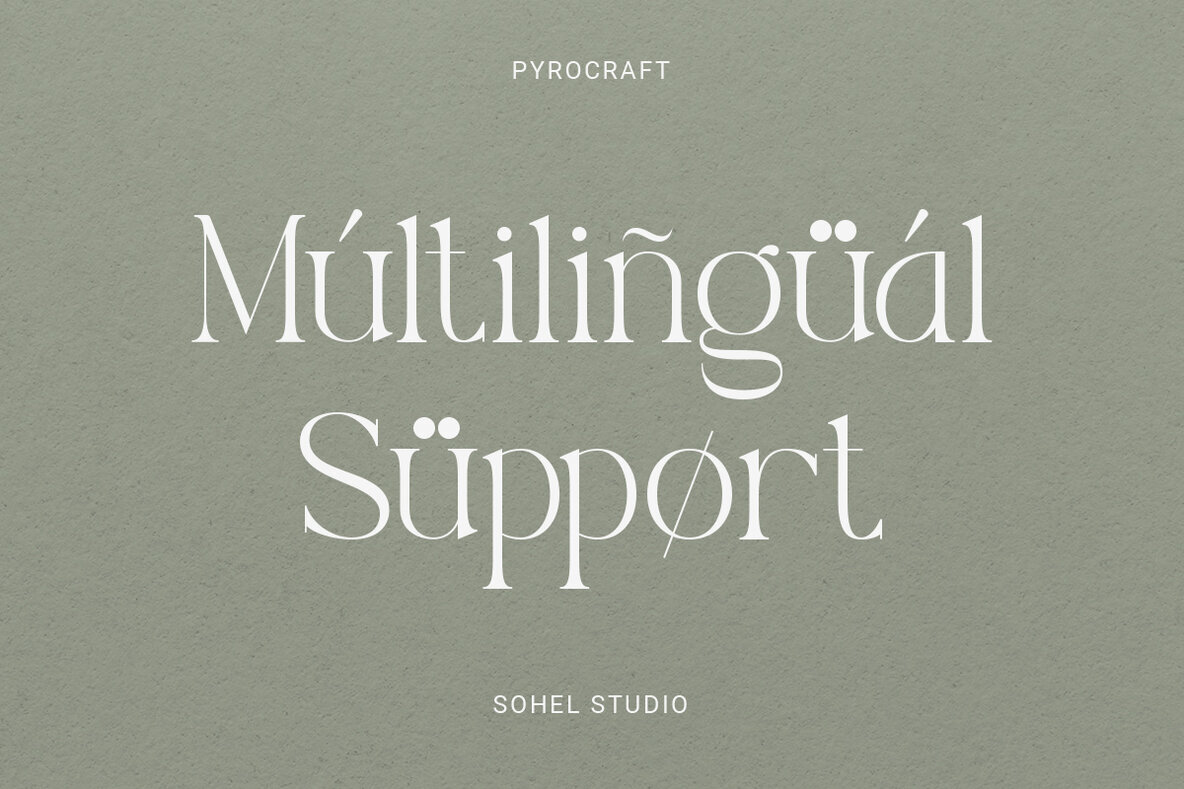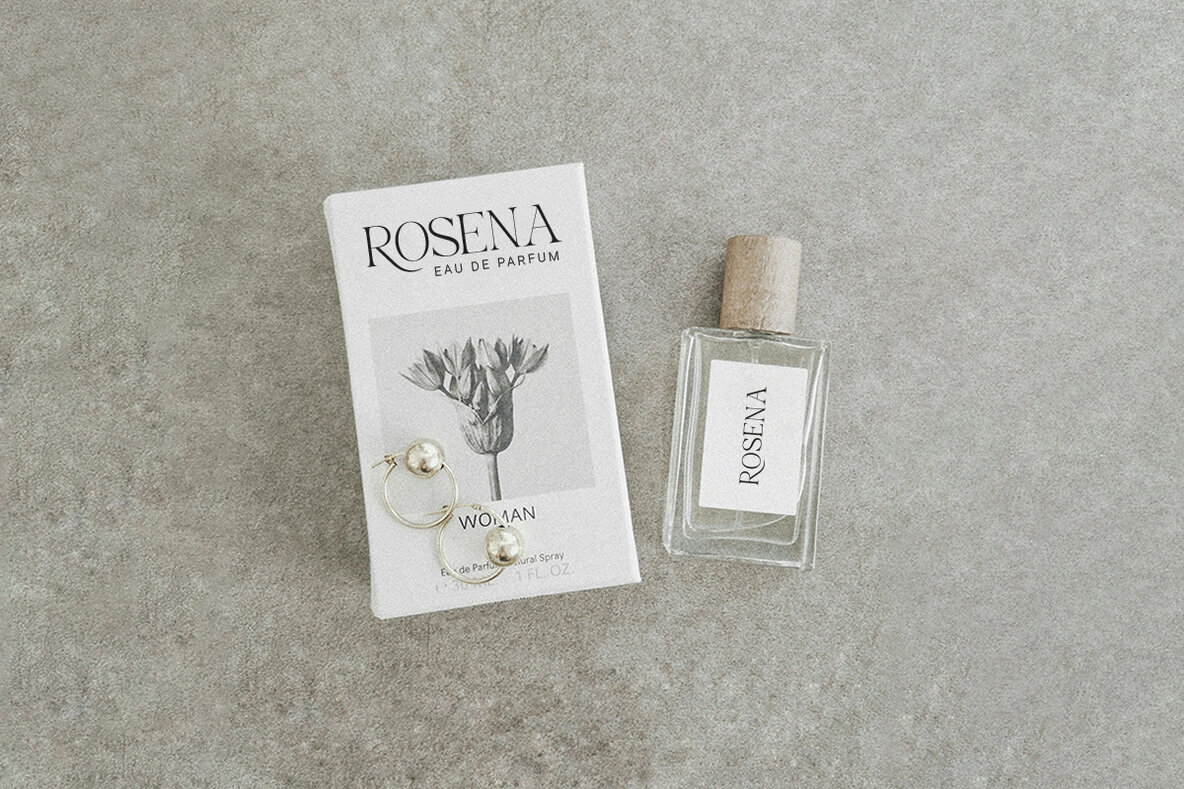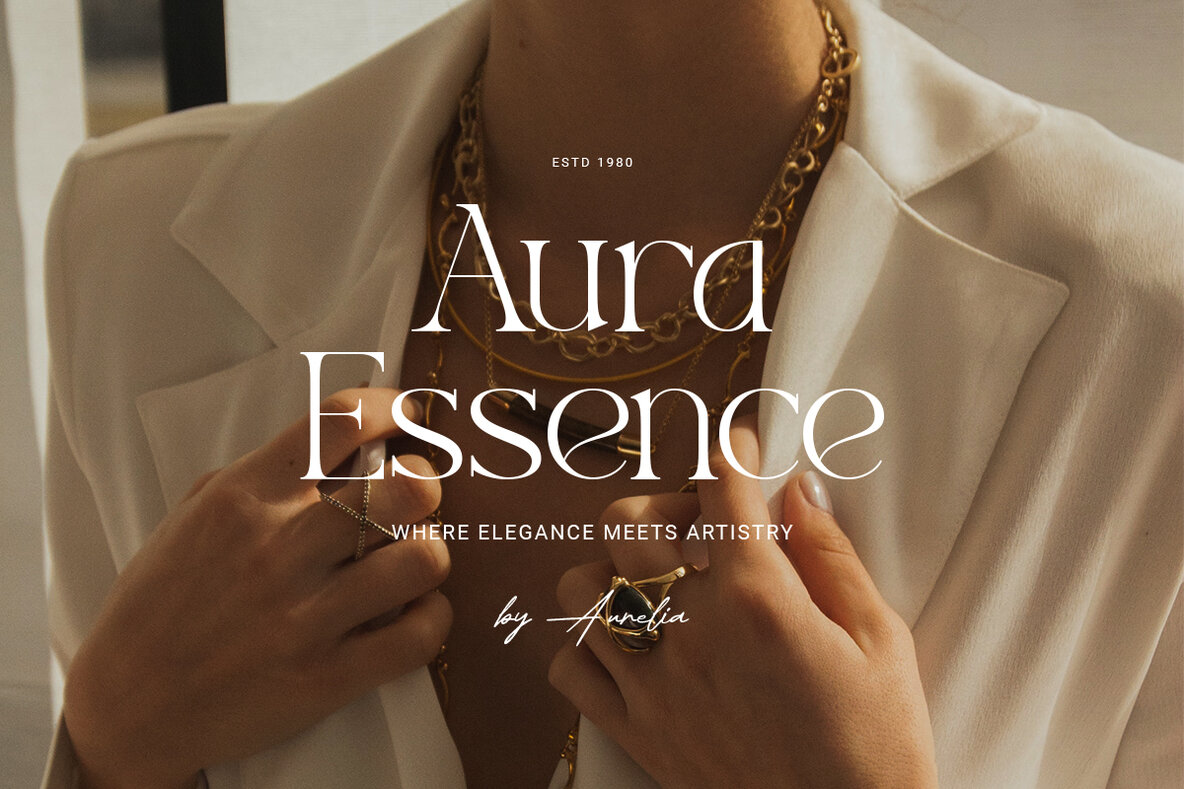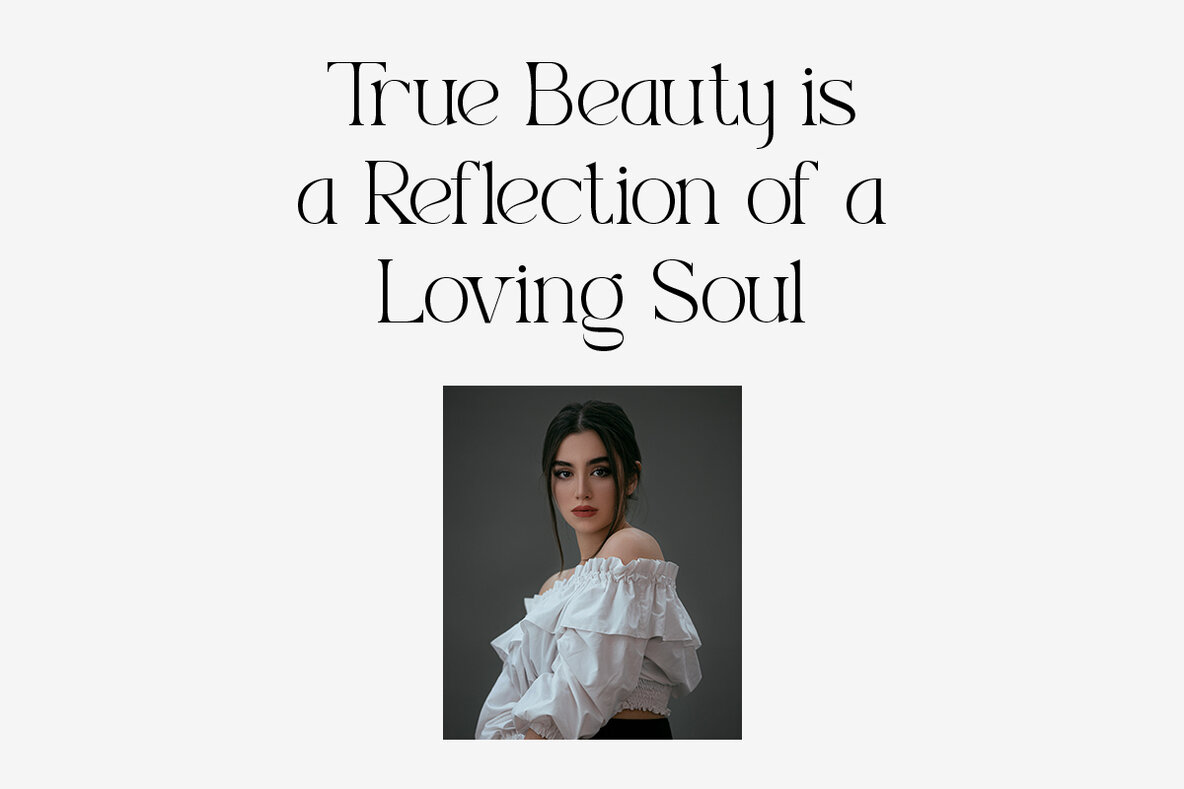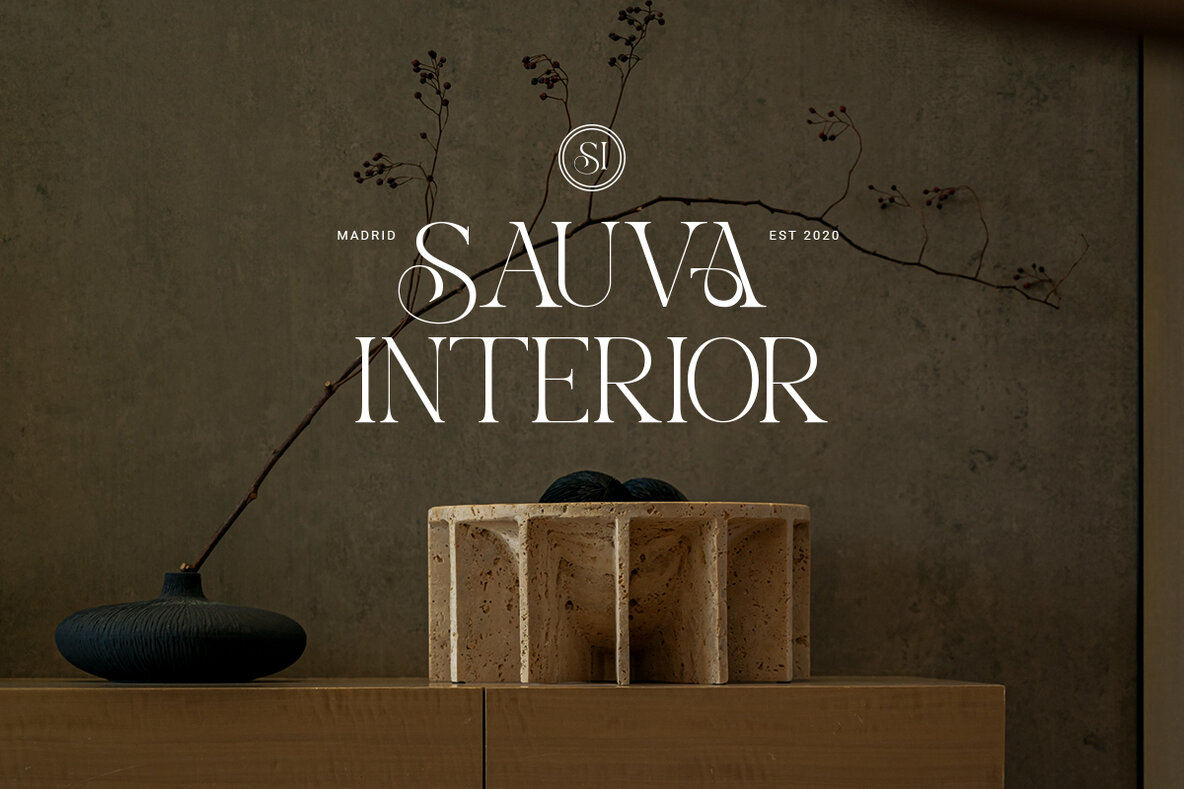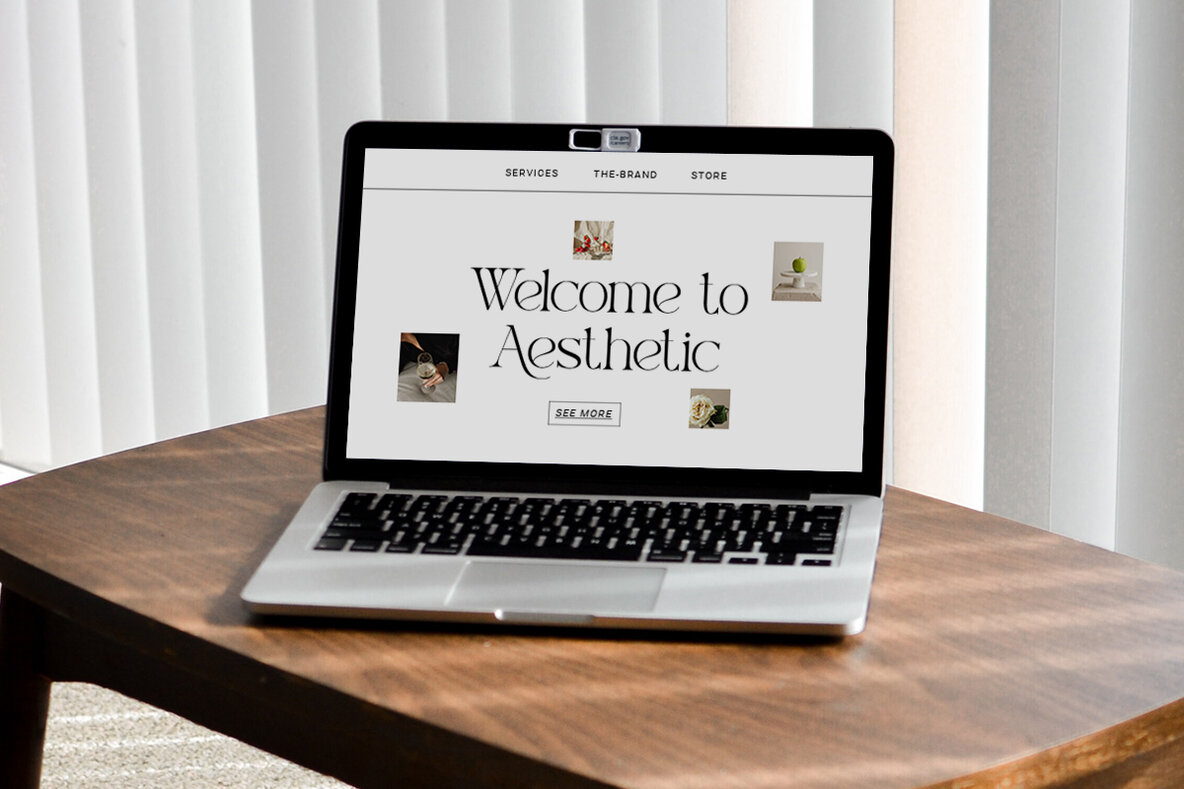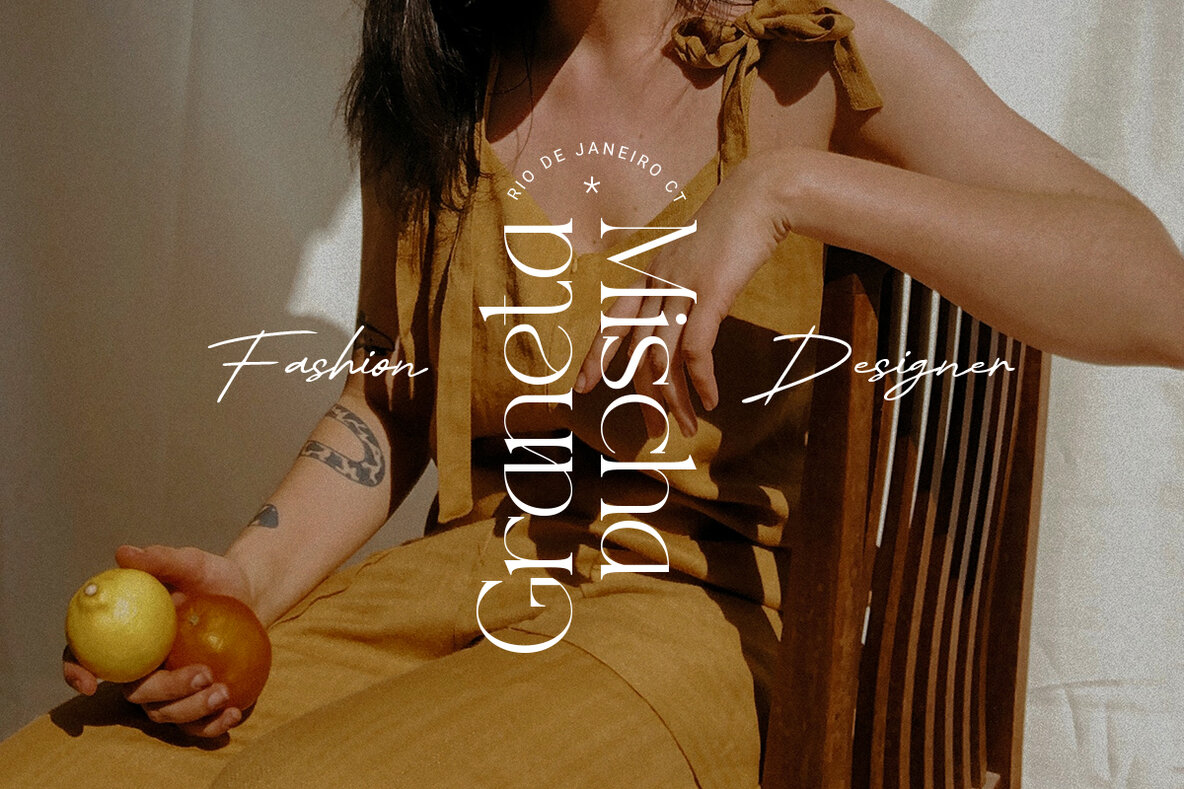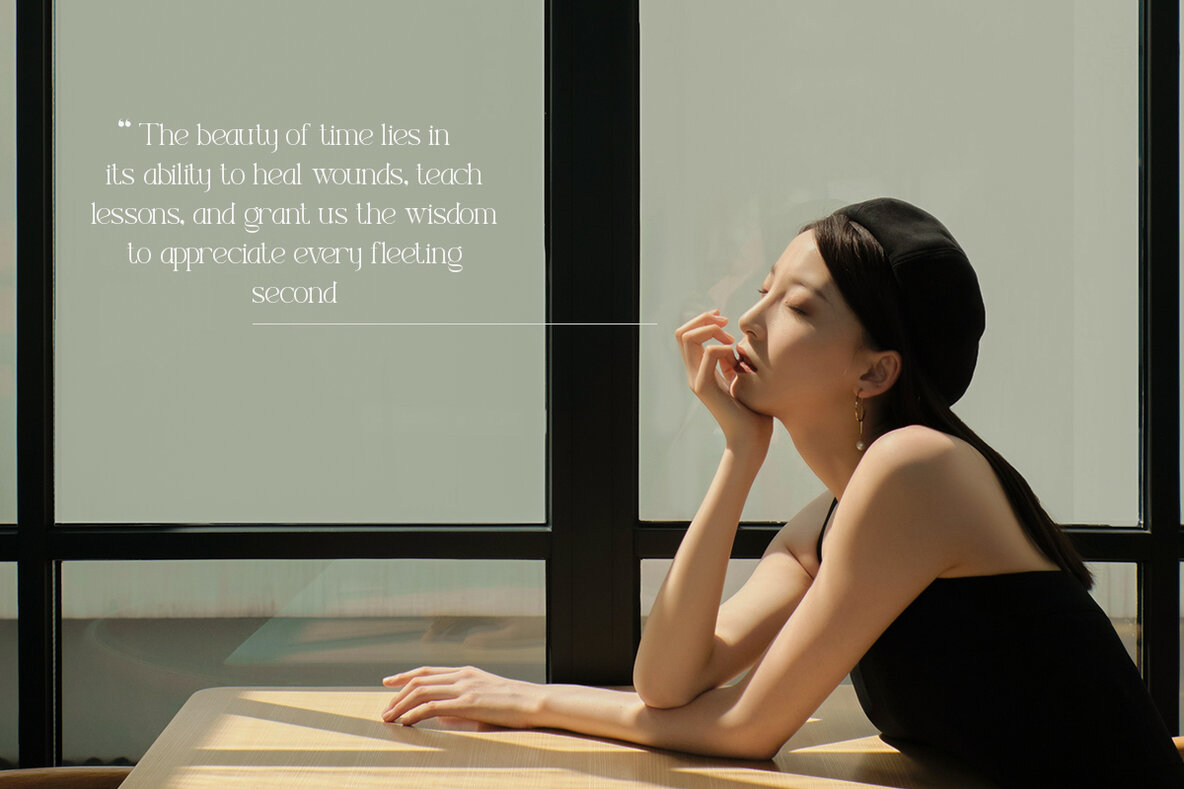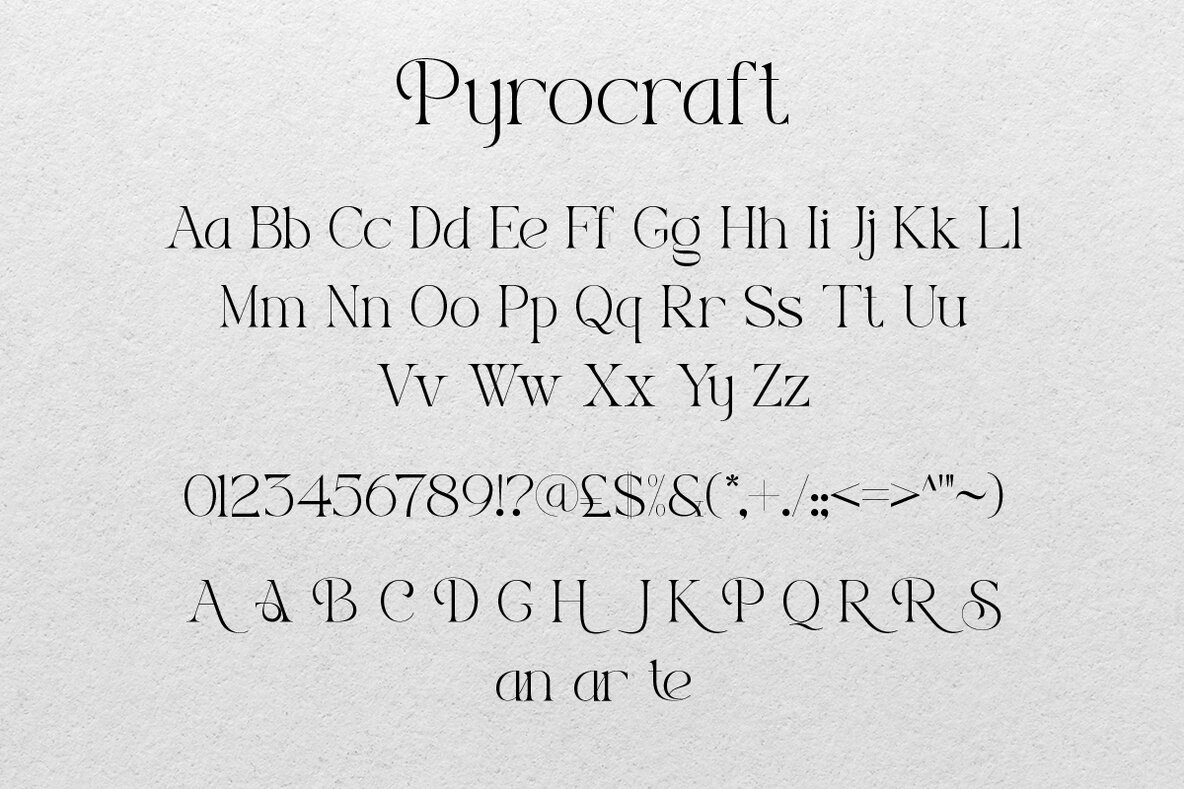
Pyrocraft Font
Pyrocraft is a modern and elegant serif typeface featuring unique alternatives and multilingual support with precise kerning. This typeface is perfect for a variety of applications such as luxury logos, classy editorial designs, women's magazines, fashion and cosmetic brands, modern advertising, invitation cards, art quotes, home decoration, book covers, special events, tote bags, T-shirts, and more. If you encounter any issues or have feedback, please feel free to contact us. We'd love to hear from you to help improve our products. Thanks and have a wonderful day.Pyrocraft: Elegant Serif Typeface with Modern Flair
Pyrocraft Features